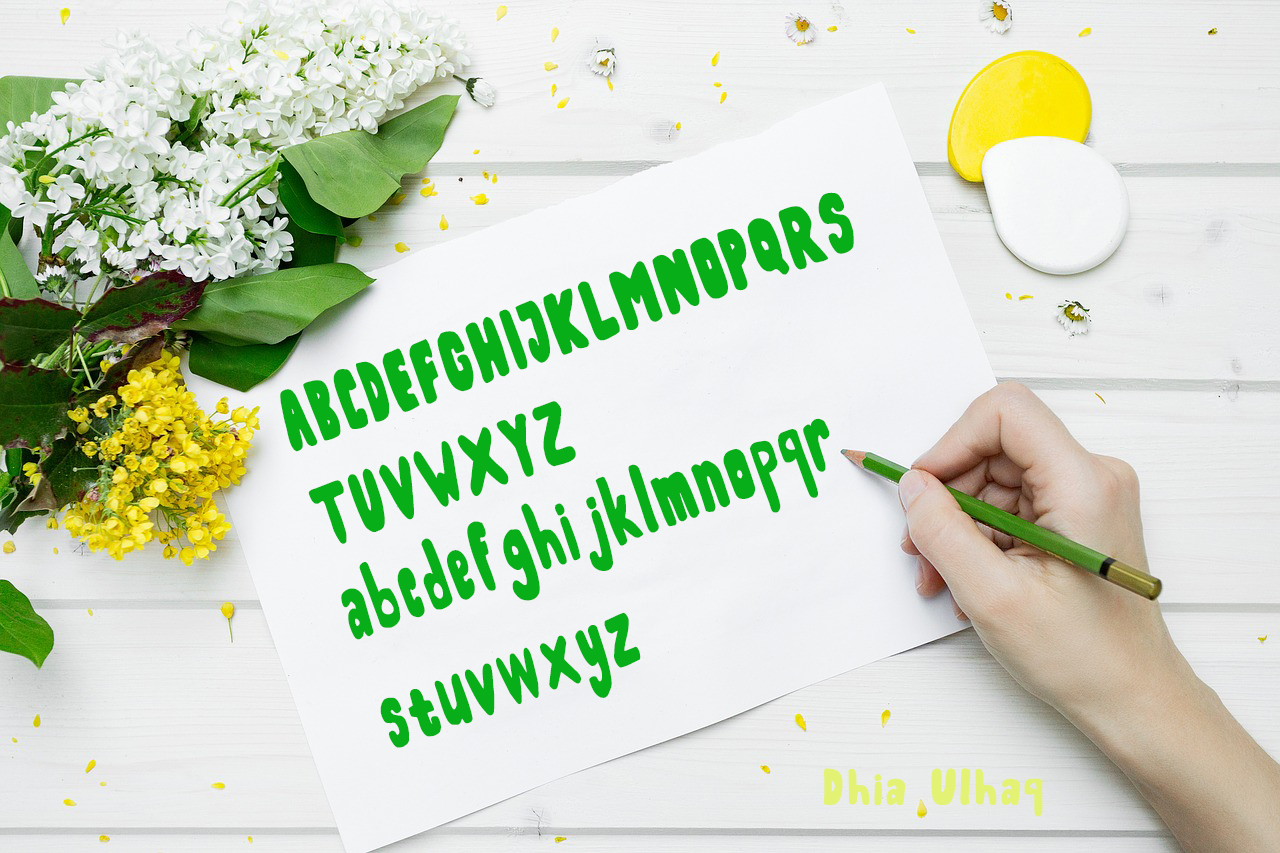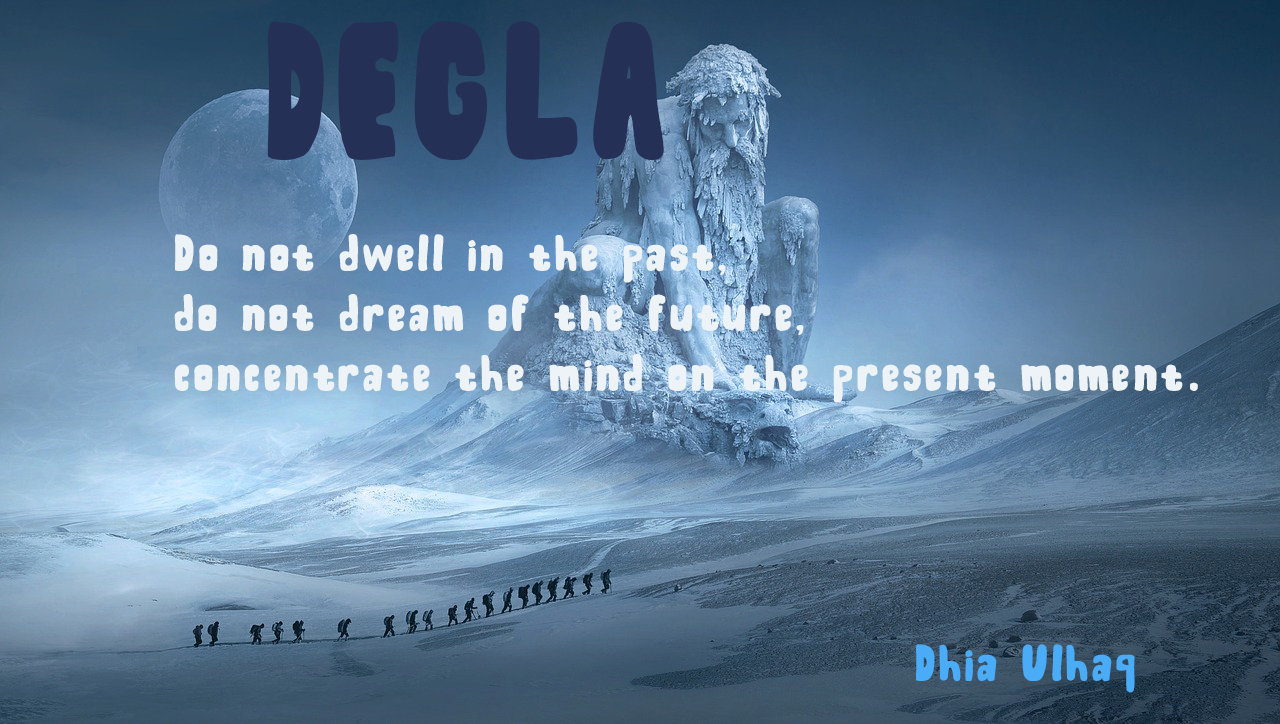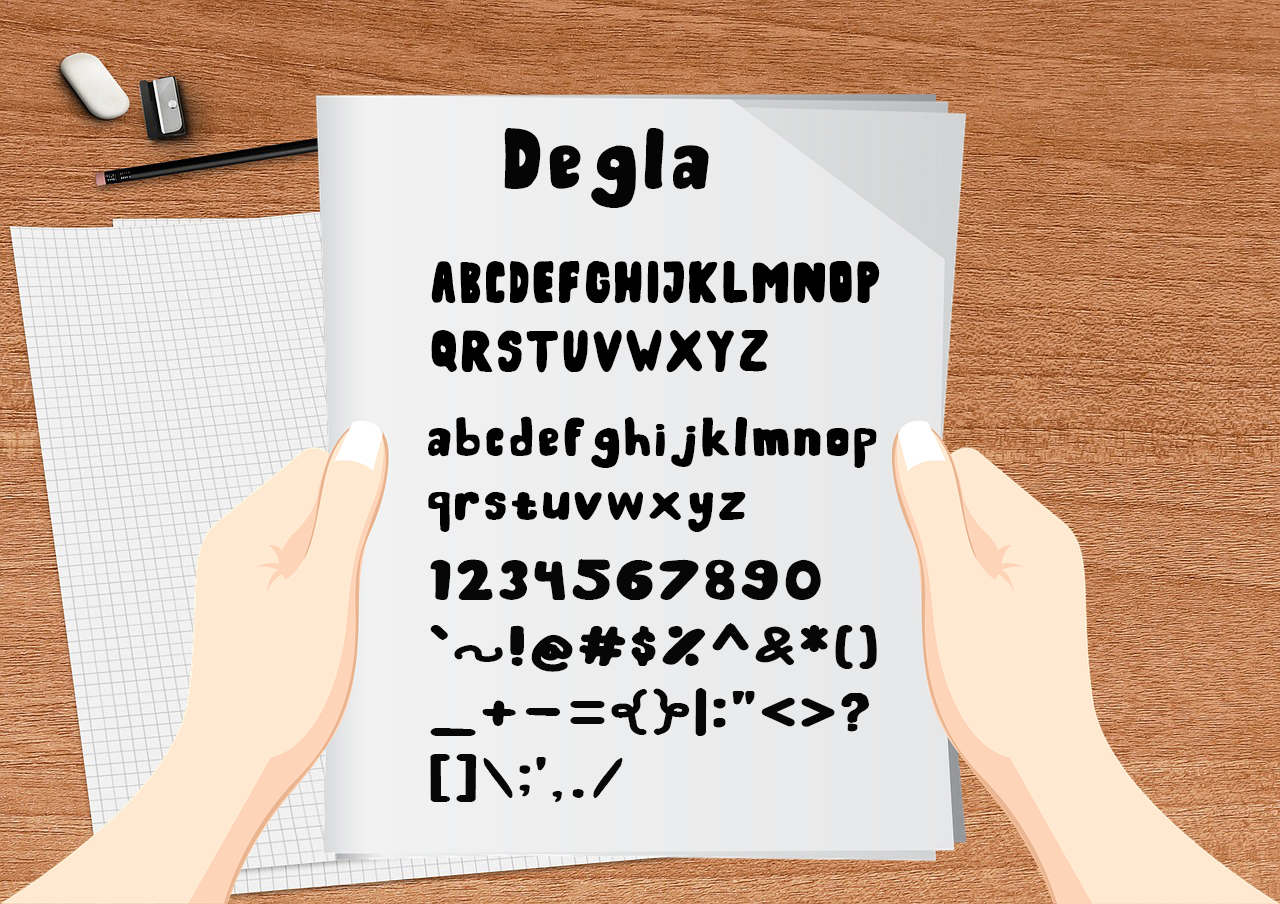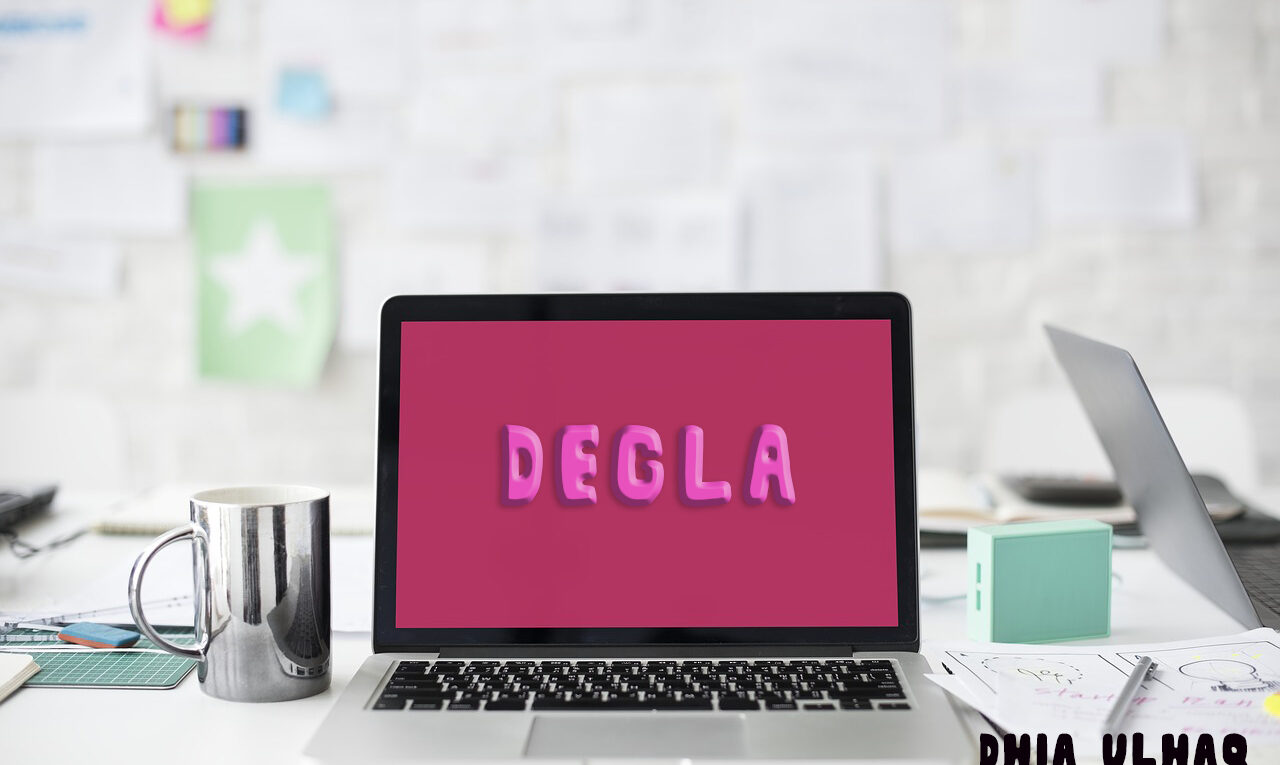
Introducing Degla Font: The Handcrafted Display Font that Makes a Statement
In the world of typography, fonts play a crucial role in conveying the tone and personality of a design. When it comes to making a lasting impression, a well-crafted display font can be the perfect tool. Degla Font is one such typeface that is sure to turn heads with its unique, handcrafted charm. In this article, we’ll dive into the world of Degla Font, exploring its features, uses, and benefits for designers and crafters alike.
What is Degla Font?
Degla Font is a handcrafted display font that exudes expressiveness and personality. Its distinctive, handmade aesthetic makes it perfect for designs that demand attention and aim to leave a lasting impression. Whether you’re working on a branding project, a poster, or a packaging design, Degla Font is sure to add a touch of uniqueness and character to your work.
Key Features of Degla Font
So, what sets Degla Font apart from other display fonts? Here are some of its key features:
- Handcrafted aesthetic: Degla Font boasts a beautifully handcrafted look, with each letter meticulously designed to showcase its unique character.
- Expressive and emotive: The font’s distinctive style makes it perfect for conveying emotions and adding personality to your designs.
- Display font: Degla Font is specifically designed as a display font, making it ideal for headlines, titles, and other attention-grabbing elements.
- Versatile: Despite its unique style, Degla Font is surprisingly versatile, and can be used across a range of design projects.
Who is Degla Font for?
Degla Font is perfect for designers, crafters, and artists who want to add a touch of personality to their work. Here are some potential users:
- Graphic designers: Whether you’re working on branding, packaging, or advertising projects, Degla Font can add a unique touch to your designs.
- Crafters and artists: If you’re creating handmade products, such as jewelry, crafts, or artwork, Degla Font can be used to add a personal touch to your labels, packaging, or promotional materials.
- Stationery and paper crafters: Degla Font is perfect for creating custom stationery, greeting cards, or paper crafts that demand attention.
Tips for Using Degla Font
To get the most out of Degla Font, here are some tips to keep in mind:
- Use it sparingly: Due to its bold, attention-grabbing style, Degla Font works best when used sparingly. Use it for headlines or titles, and pair it with a simpler font for body text.
- Experiment with colors: Degla Font looks great in a range of colors, so don’t be afraid to experiment and find the perfect hue to match your brand or design.
- Mix and match: Try pairing Degla Font with other fonts to create a unique and visually appealing typography combination.
Degla Font is a truly unique and expressive display font that can add a touch of personality to any design project. Its handcrafted aesthetic, versatility, and range of uses make it perfect for designers, crafters, and artists looking to make a lasting impression. With its bold, attention-grabbing style and endless creative possibilities, Degla Font is sure to become a favorite in your typography arsenal.